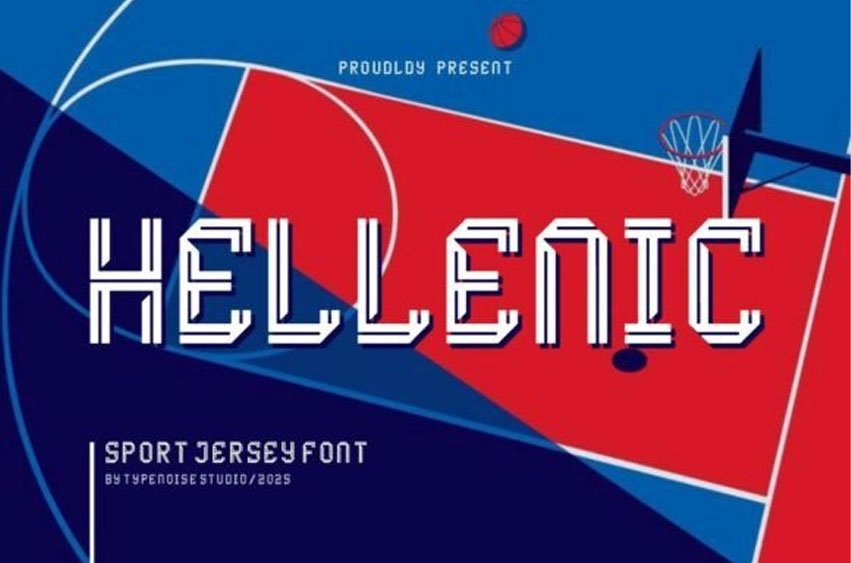
Hellenic Sport Font is a striking display font crafted for creators who want their message to hit with impact. Defined by its geometric lines, layered strokes, and modern athletic styling, Hellenic brings an energetic, competitive spirit to anything it touches.
With its strong structural forms and futuristic outline aesthetic, this font instantly commands attention—making it perfect for sports jerseys, team uniforms, esports branding, gym apparel, event merchandise, and dynamic promotional graphics.
The letterforms feature a unique multi-line construction that adds depth and motion, giving every word a sense of speed and confidence. Whether used for player names, numbers, headlines, or logo work, Hellenic delivers a bold identity that feels both modern and powerful.